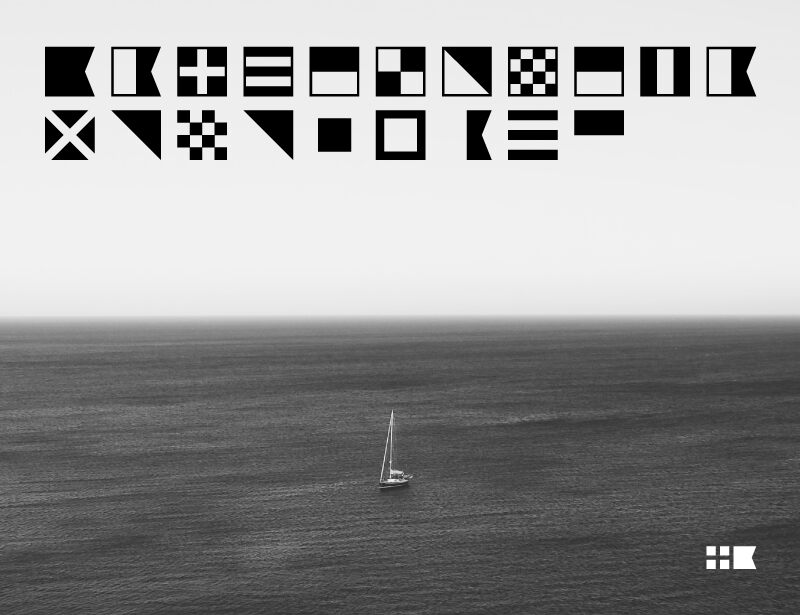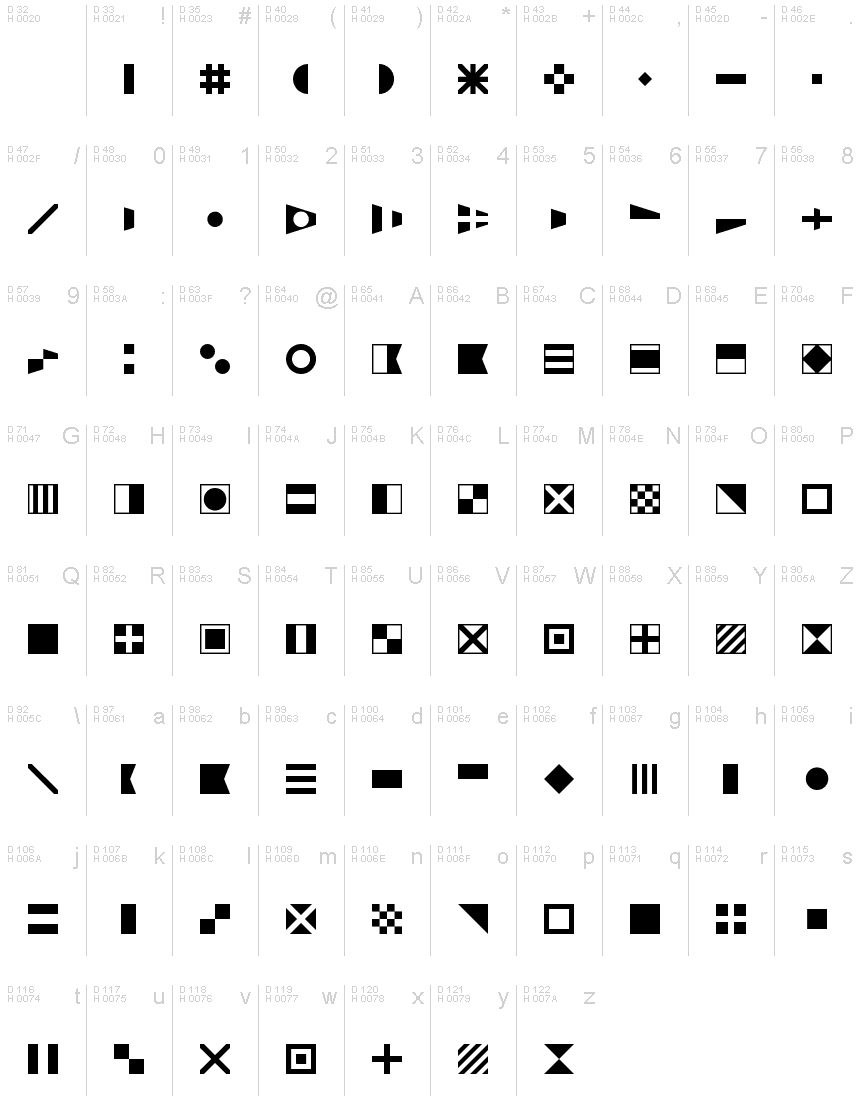
Barceloneta Monospace is a free dingbat font based on the International Code of Signals.It includes a stylised version of the whole code's alphabet and also brand new capital characters, numbers and basic punctuation marks.